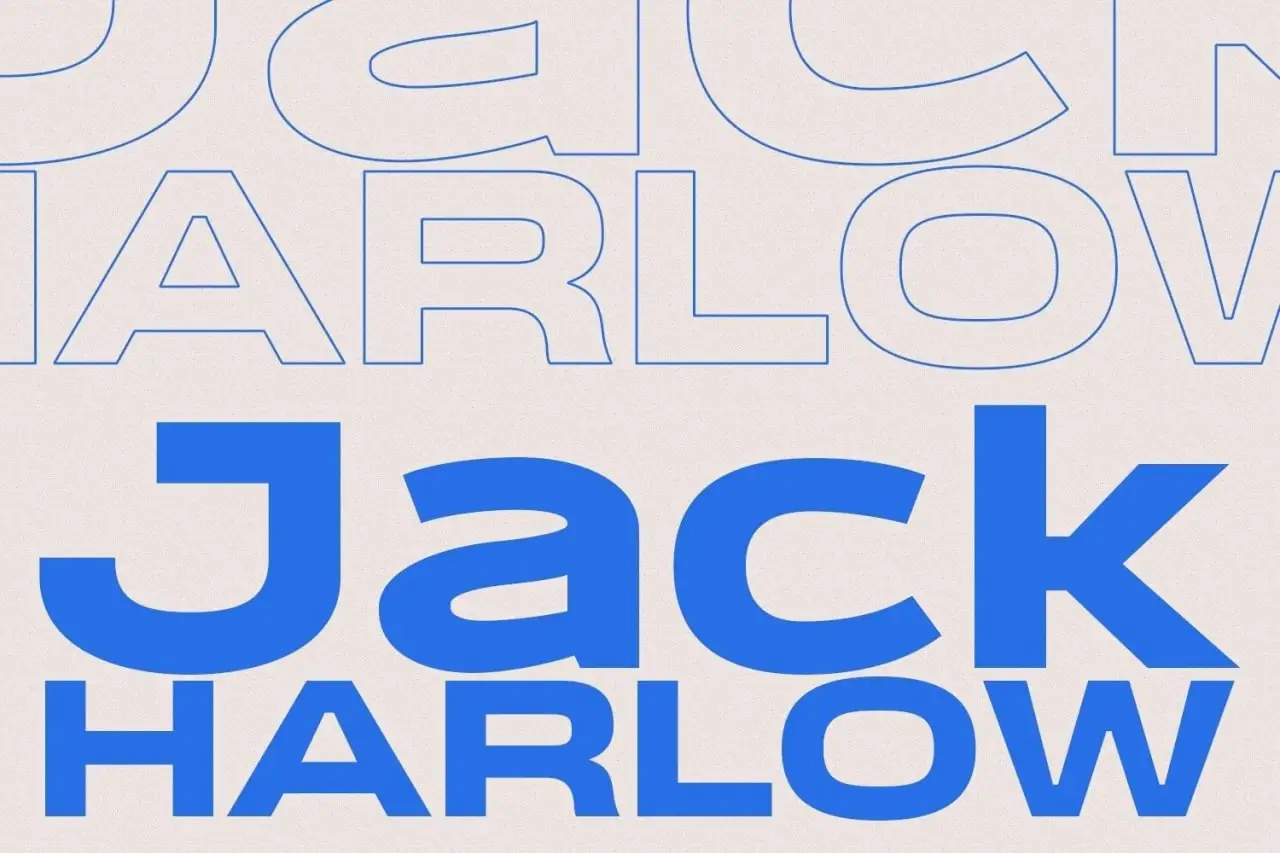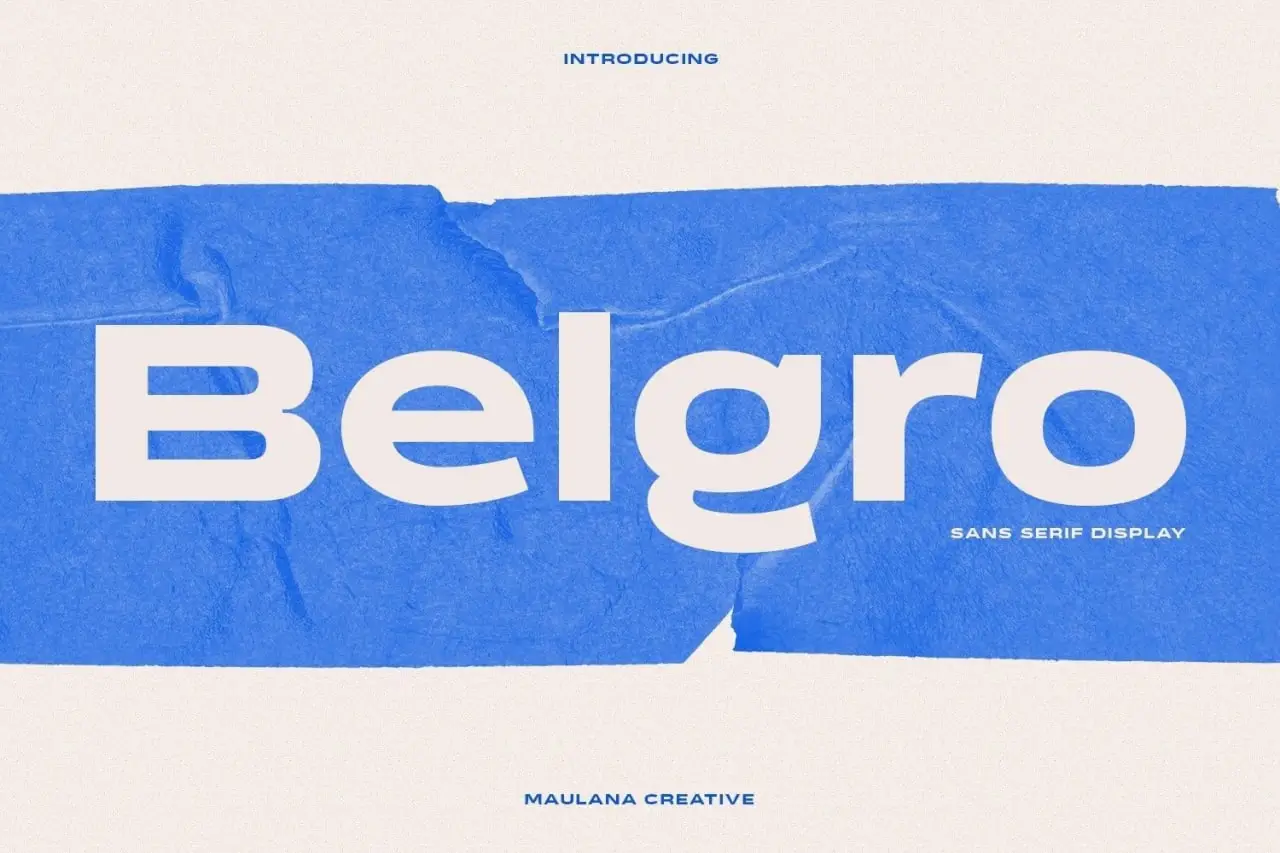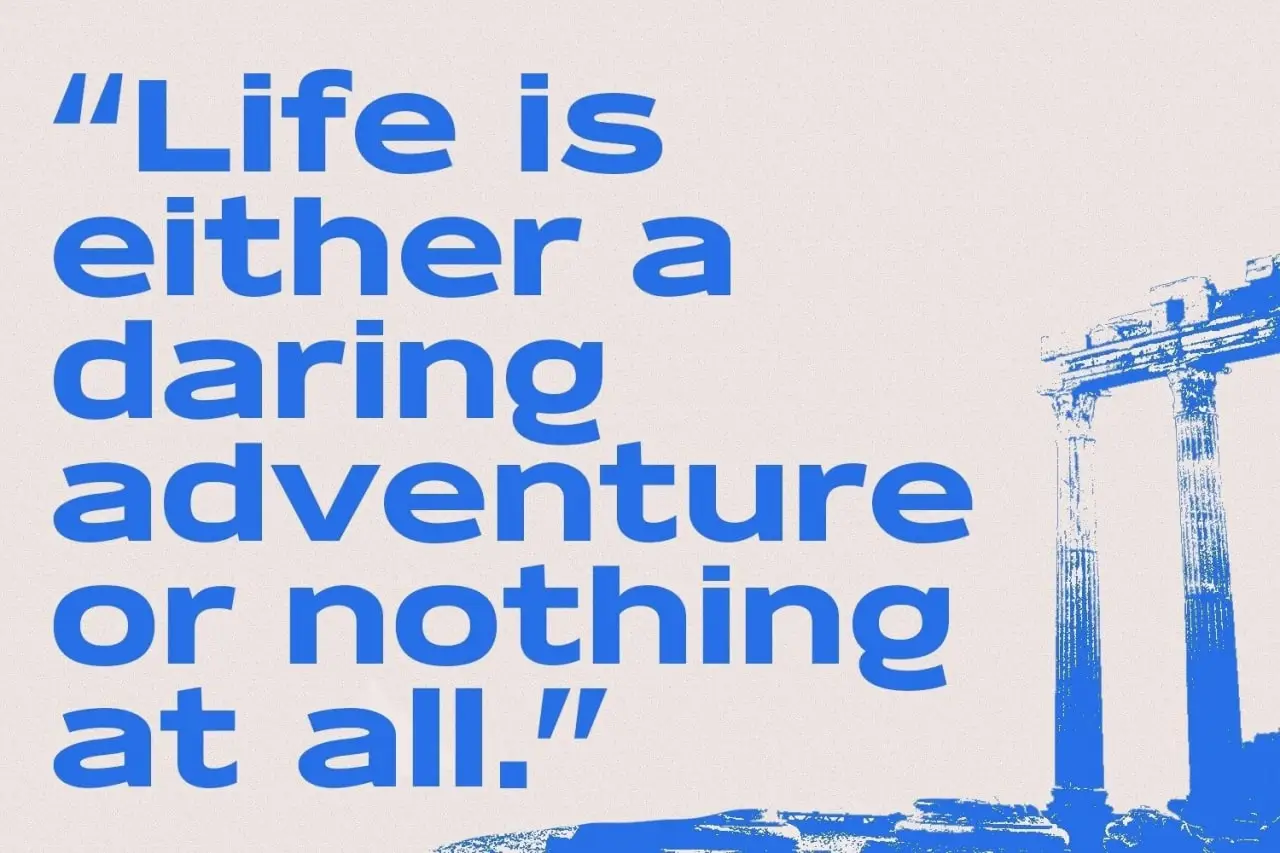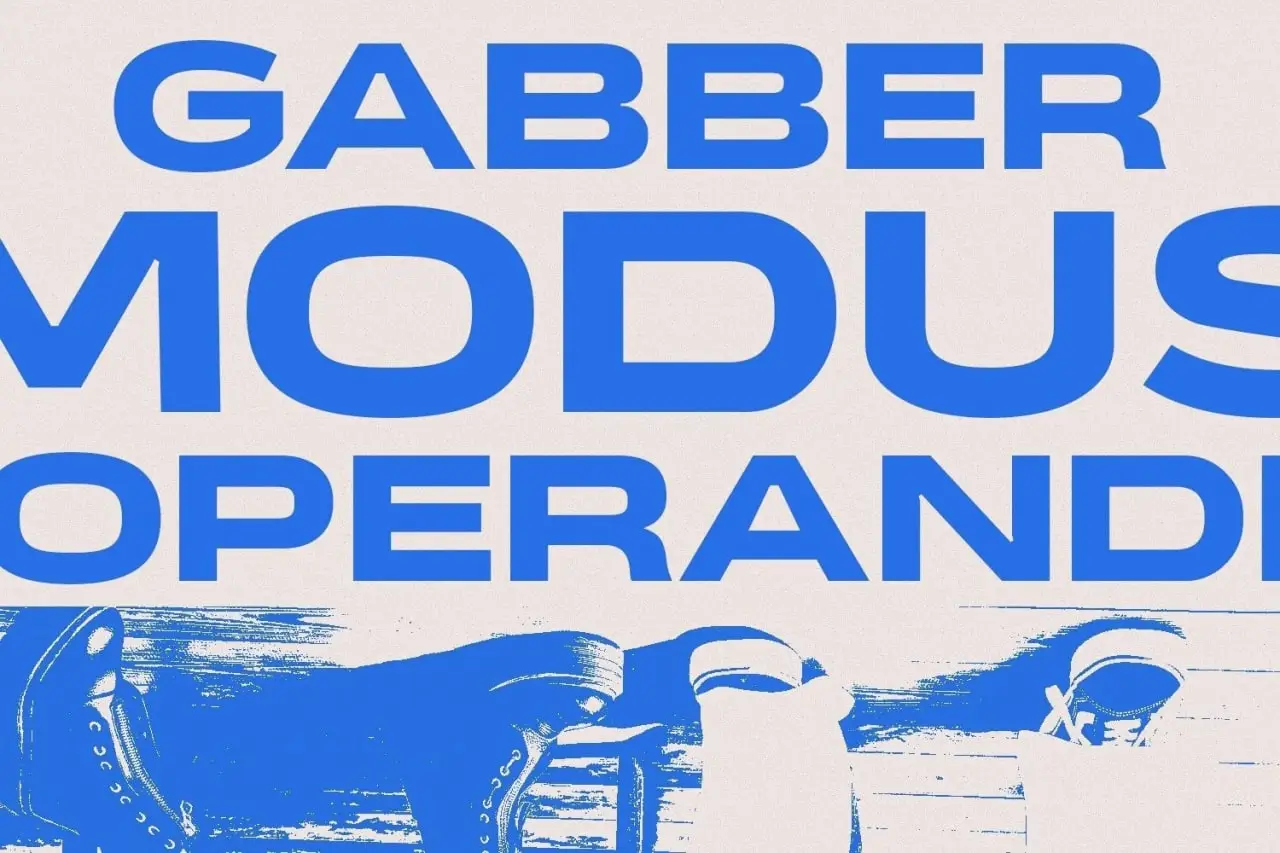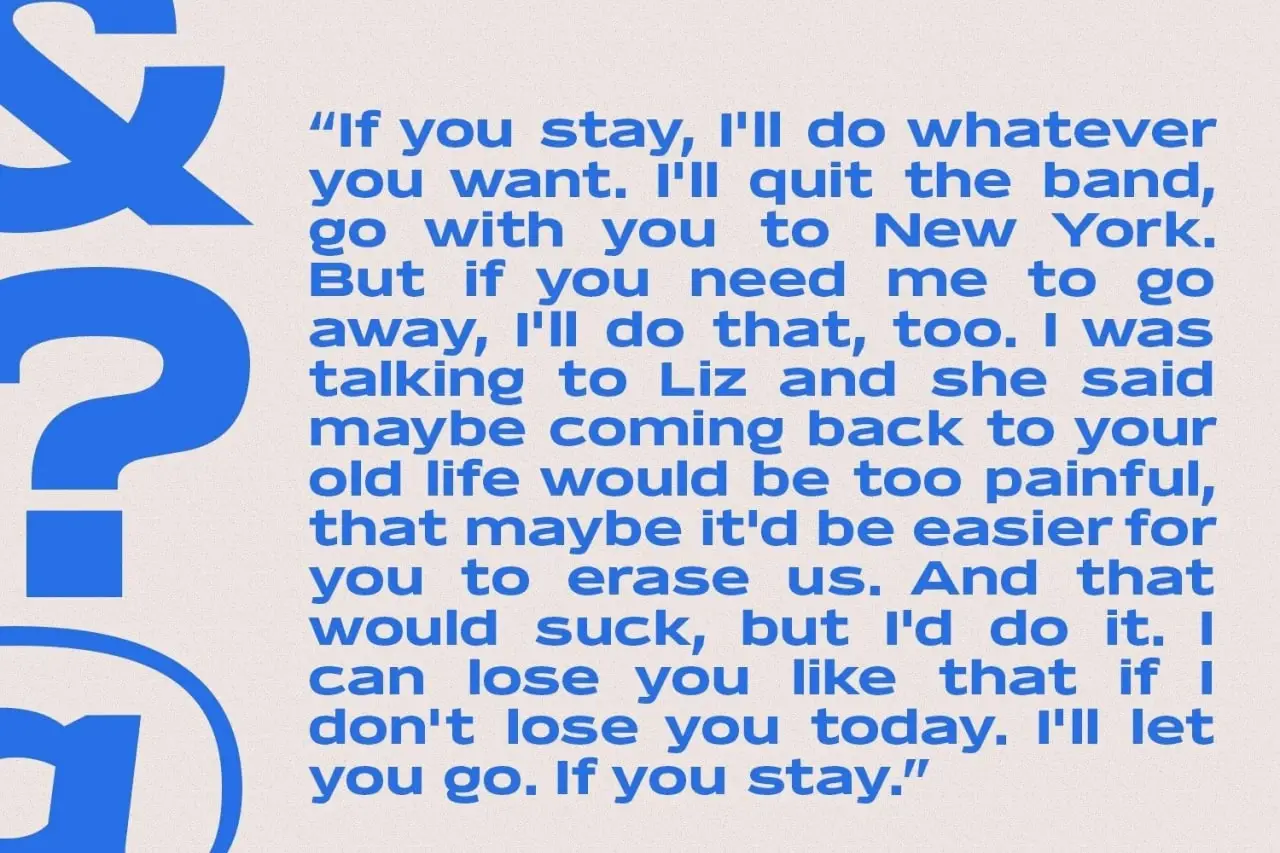
Belgro Font By Maulana Creative
Introducing Belgro Font, a stunning typeface by Maulana Creative, designed to elevate your design projects. This font features a modern and elegant style, perfect for a variety of applications.
• Perfect for web design and print projects
• Utilize in user interfaces for a modern touch